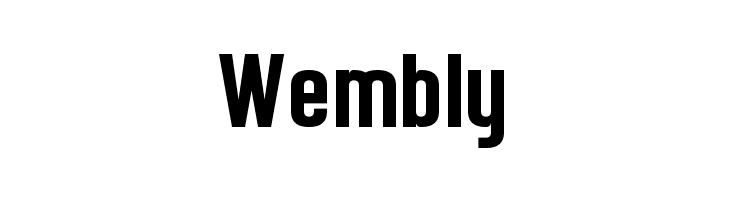
A tall, narrow, and modern sans-serif font with consistent stroke width.
A bold, condensed font with tall, narrow letterforms and strong visual impact.
A bold, distressed font with a grunge, hand-painted style.
A modern, condensed sans-serif font with a clean and streamlined appearance.
A modern, condensed sans-serif font with a clean and professional appearance.
A modern, oblique, and condensed font with a sleek appearance.
A modern, oblique, and condensed font with consistent stroke thickness.
A bold, condensed font with strong vertical emphasis and uniform width.
A bold, condensed, and modern geometric font.
A bold, condensed font with a modern and geometric style.
A playful and elegant handwritten script font with flowing curves.
An elegant and flowing script font with interconnected letterforms.
A bold, decorative font with a playful and vintage style.
A casual, handwritten font with a playful and informal style.
A bold, Western-style font with sharp angles and unique cutouts.
A dynamic and flowing script font with elegant, cursive strokes.
A fluid and elegant script font with dynamic letterforms and graceful curves.
A bold, modern font with strong lines and a commanding presence.
A playful, handwritten font with tall, narrow letterforms and a casual style.
An elegant and flowing script font with a luxurious and refined style.
A bold, dynamic script font with thick, expressive strokes and a fluid, connected style.
A bold, distressed font with a grunge texture and strong presence.
An elegant and flowing script font with graceful curves and cursive strokes.
An elegant, flowing script font with a handwritten style.
A bold, modern font with thick, uniform strokes and a strong visual impact.